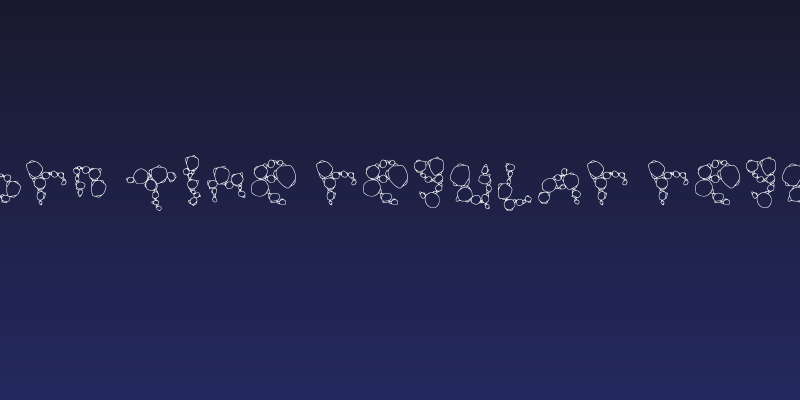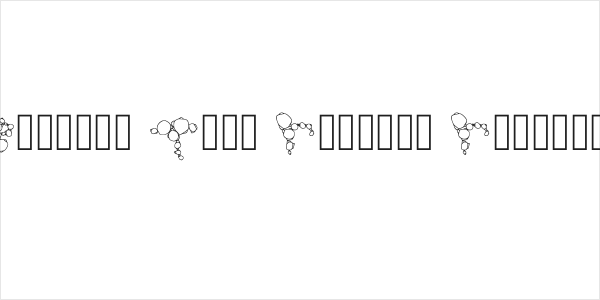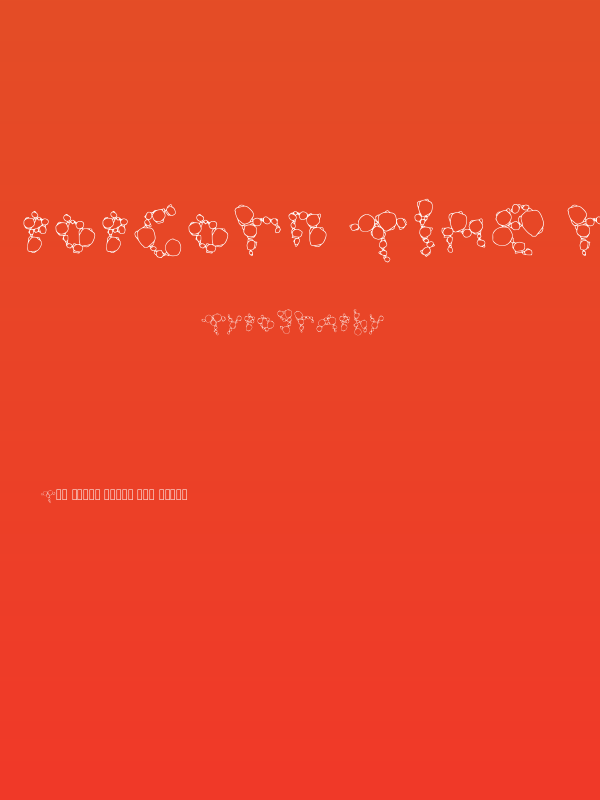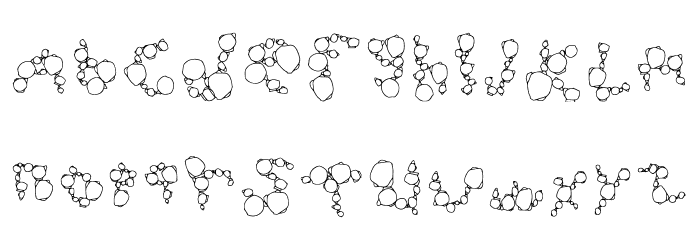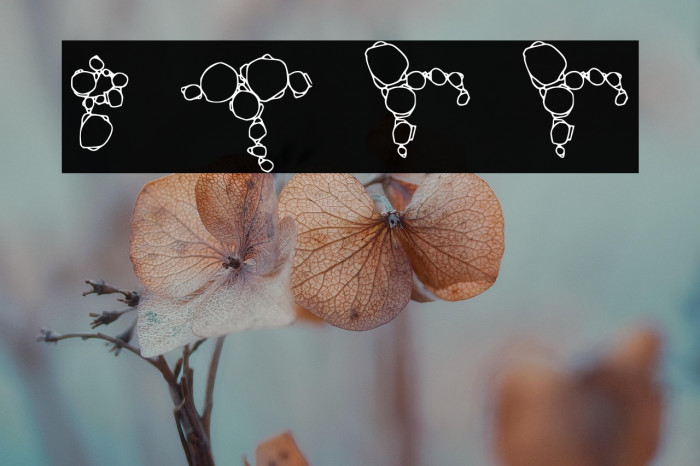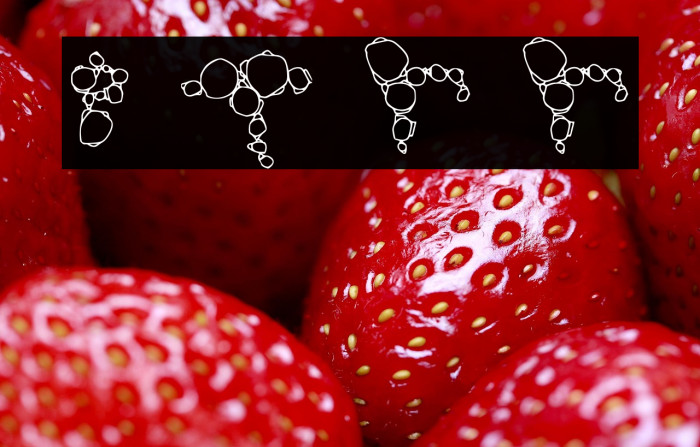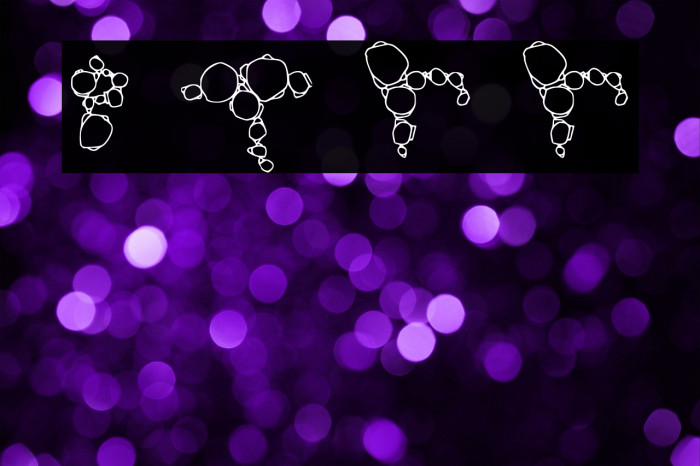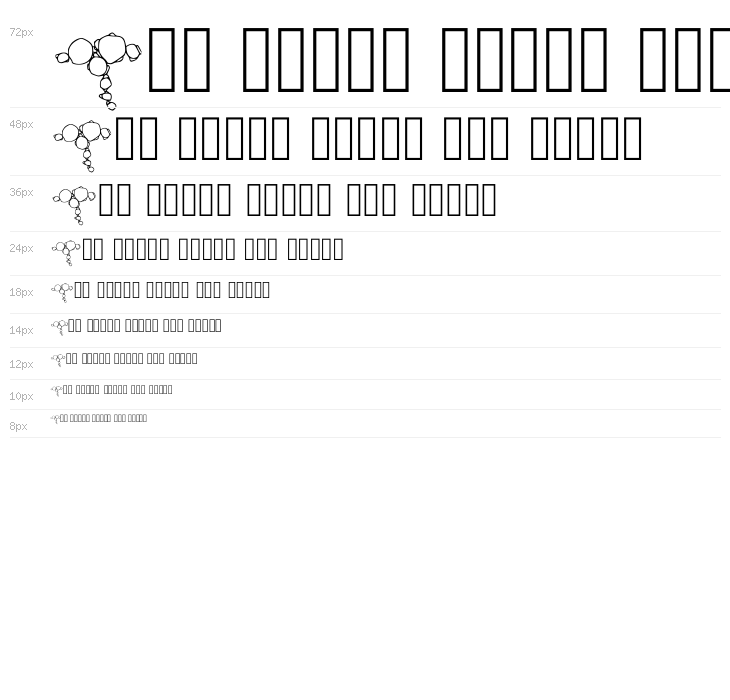
Popcorn Time Regular Font
Popcorn Time Regular Description
This playful and whimsical font is composed of interconnected circles that form each letter, creating a bubbly and dynamic appearance. The letters are constructed with varying sizes of circles, giving the font a lively and energetic feel. The overall design is unique and eye-catching, making it suitable for creative and informal projects. The font maintains a consistent structure across both uppercase and lowercase letters, as well as numbers and special characters, ensuring readability while retaining its distinctive style.
| Proposed Projects | Ideal for children's books, party invitations, playful branding, and creative posters. |